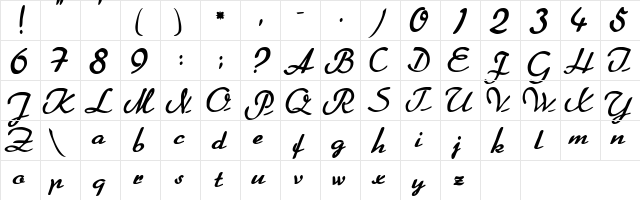
FalironScriptSSK Bold Font Preview
Design Context for FalironScriptSSK Typeface
FalironScriptSSK brings a calligraphic fluidity to the page — its connecting strokes and expressive curves give it an unmistakably human quality. The heavy weight commands attention and anchors typographic hierarchies.
Font Pairing: Combine FalironScriptSSK with a simple geometric sans for maximum contrast — the tension between flowing curves and clean structure is a classic typographic pairing.
Pro Tip: Pair FalironScriptSSK with a clean sans-serif for supporting text. The contrast between fluid script and geometric structure creates an elegant typographic hierarchy.